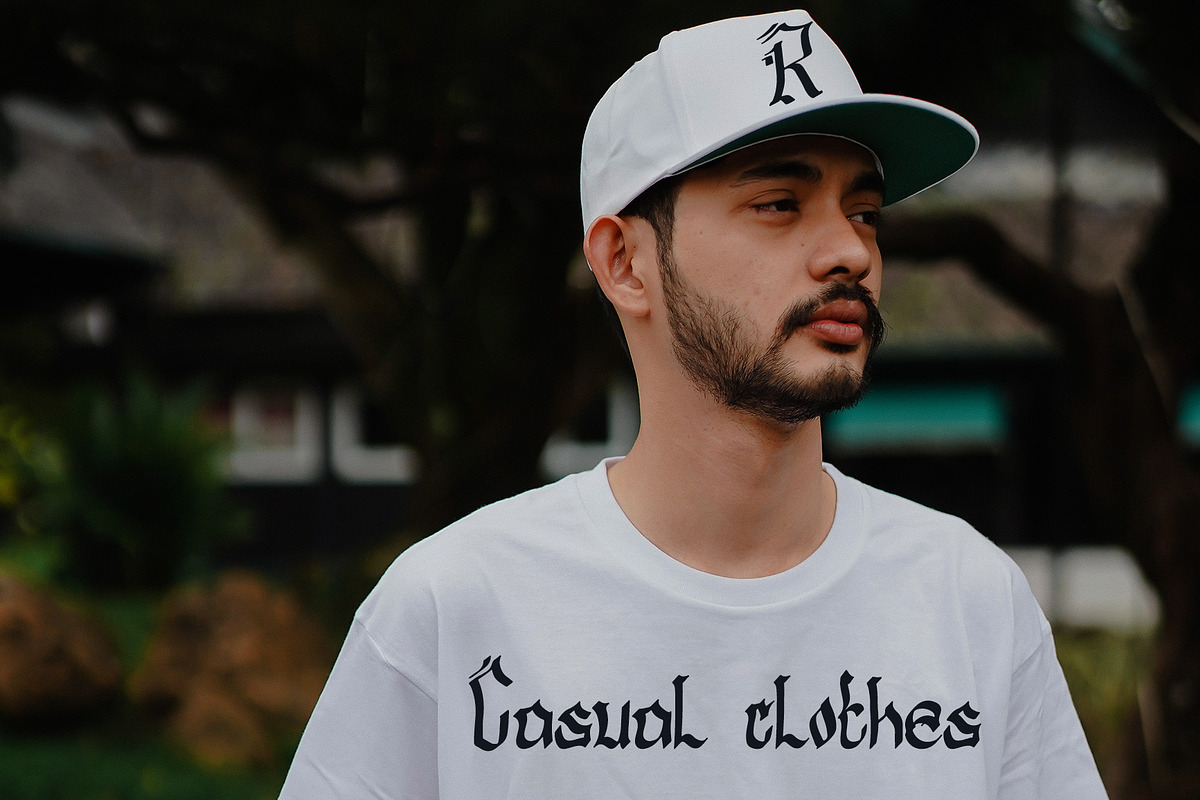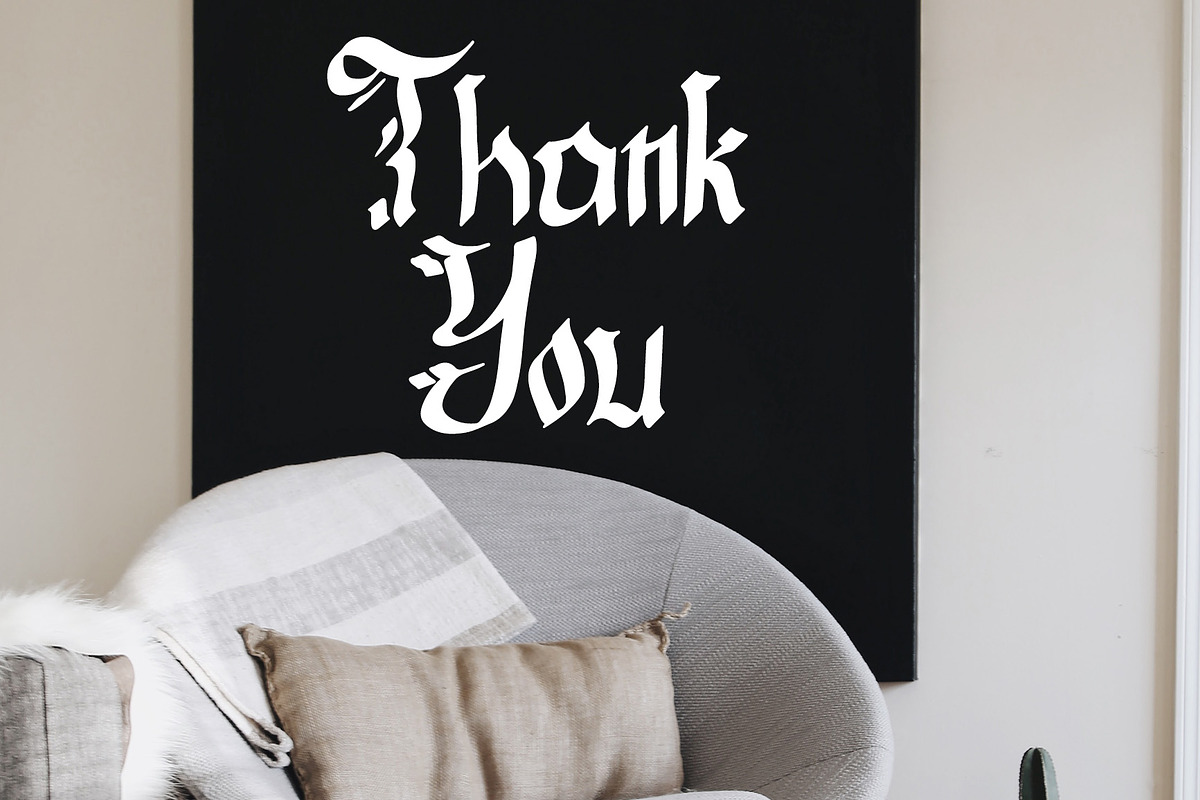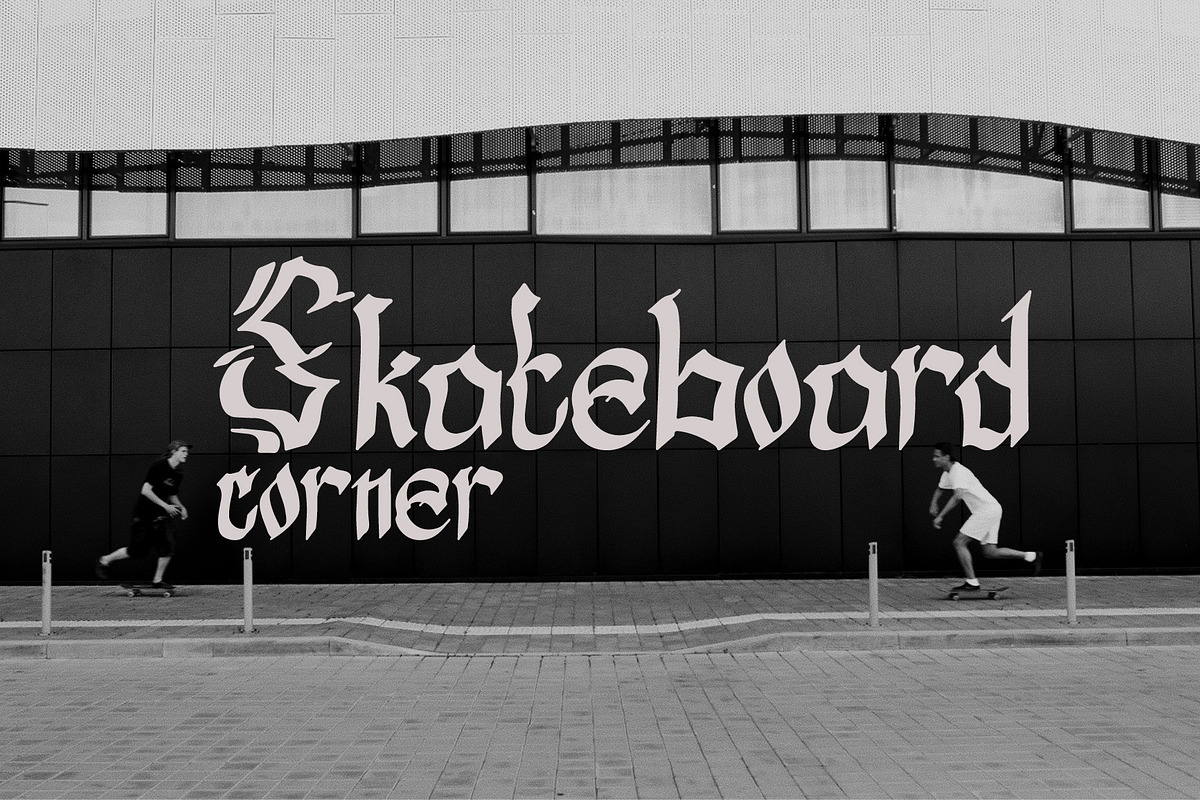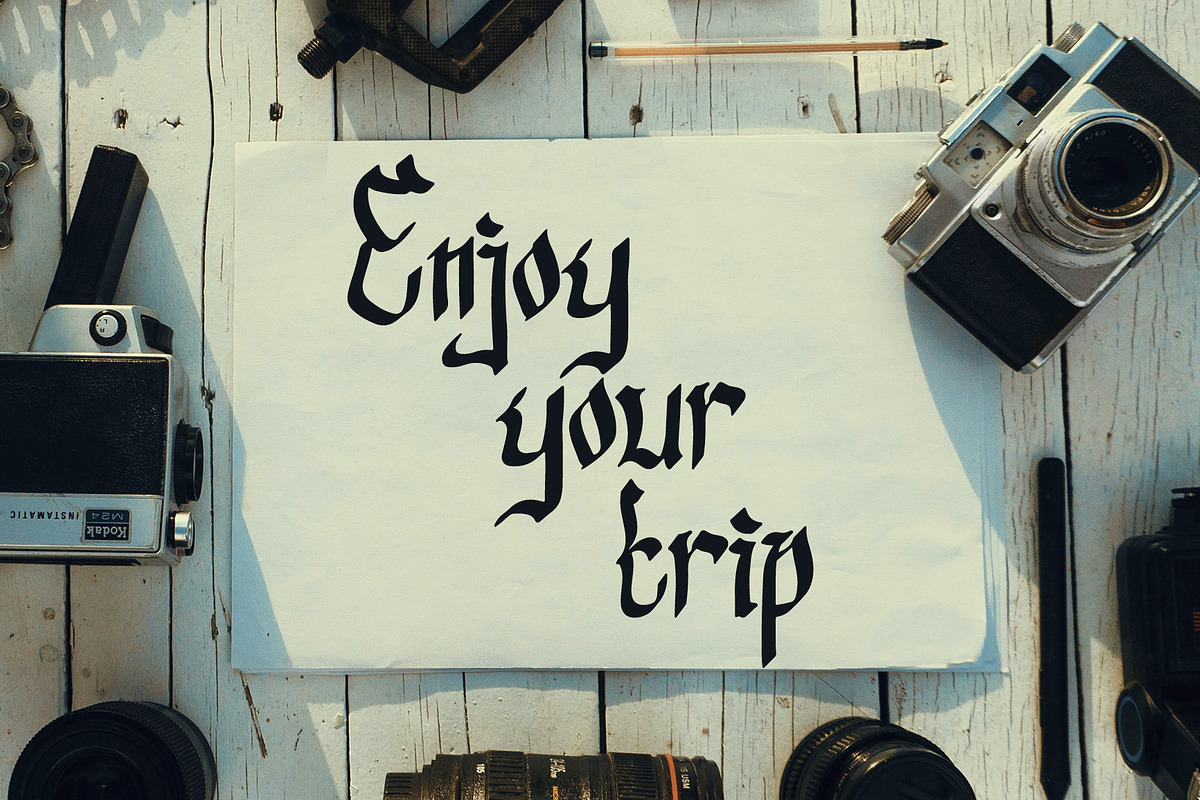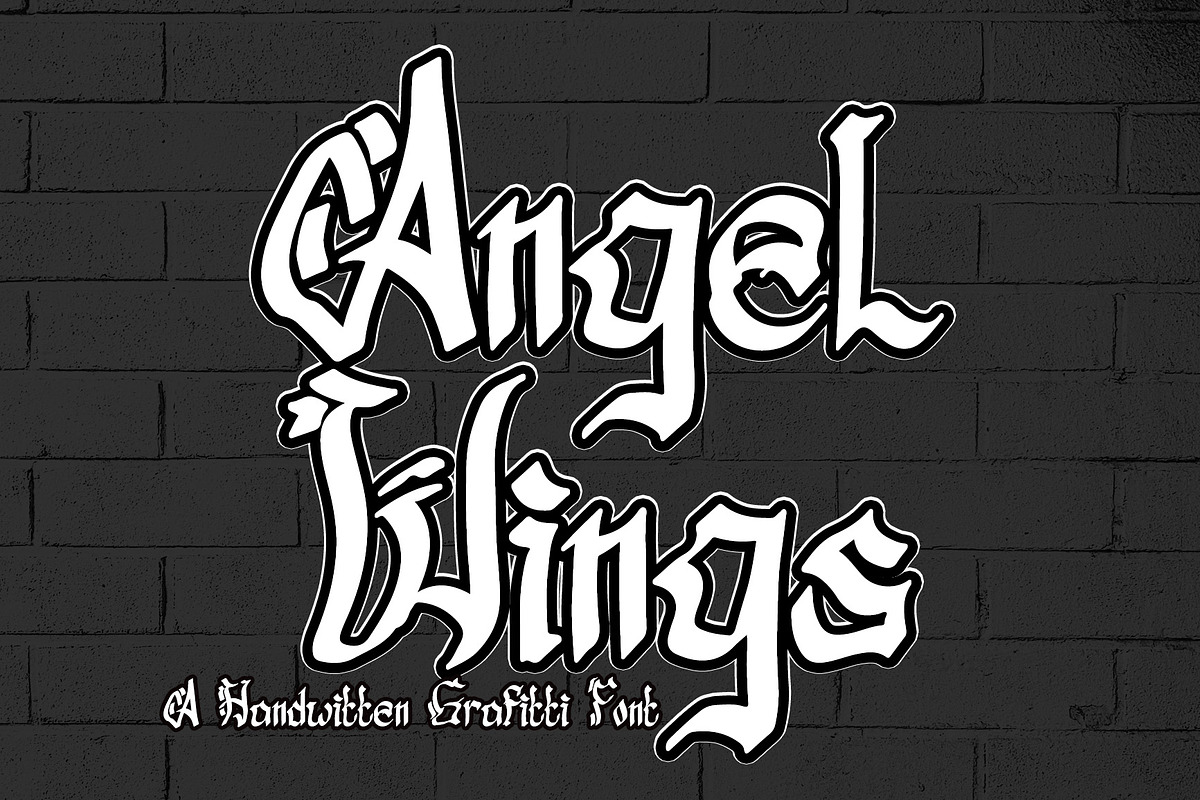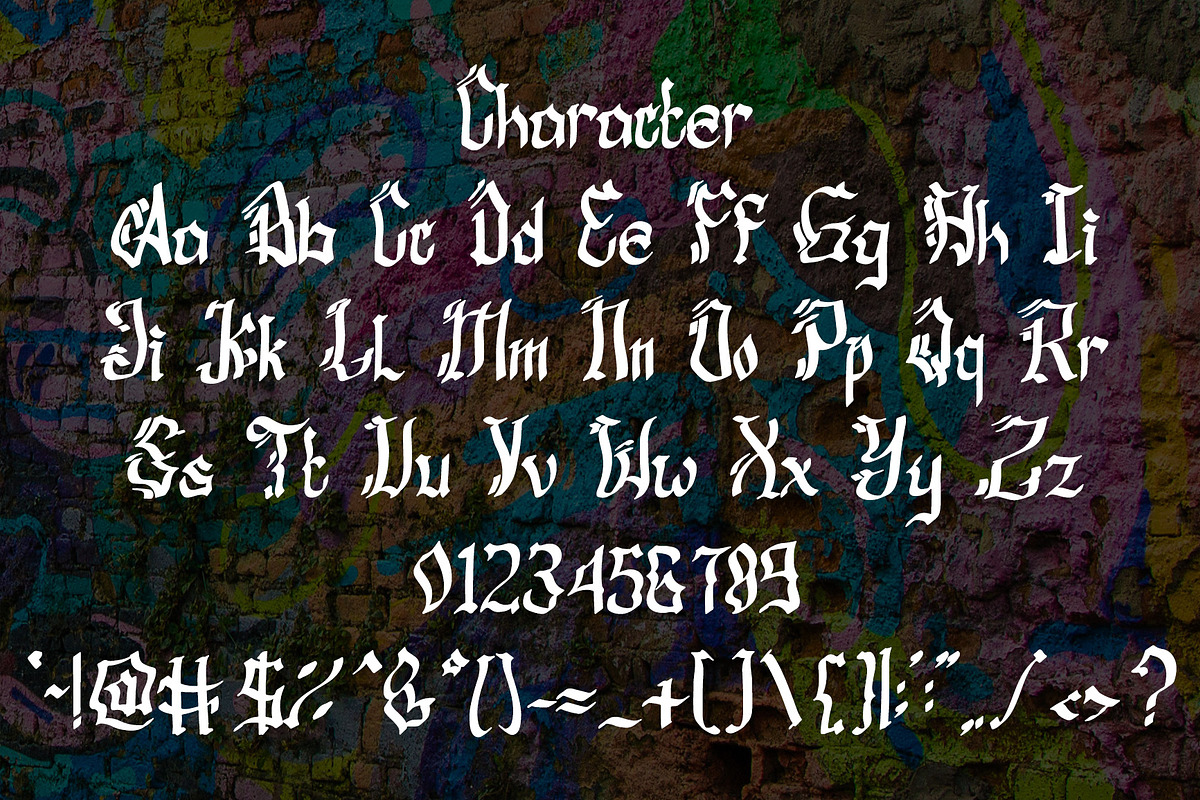
Angel Wings
Angel Wings font is a modern and eye-catching font that was created by paying careful attention to every curve and distance between letters so as to produce a quality font that is perfect for your projects such as wedding invitations, t-shirt printing, brands, and much more.